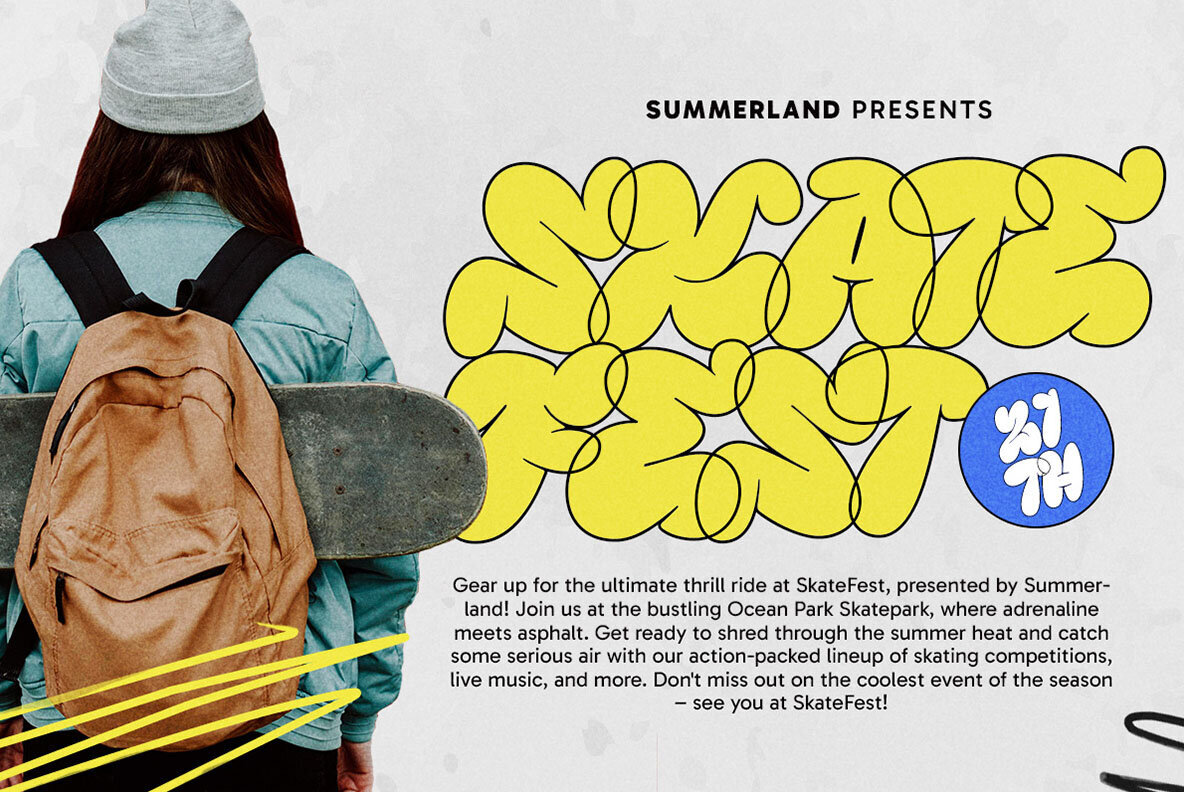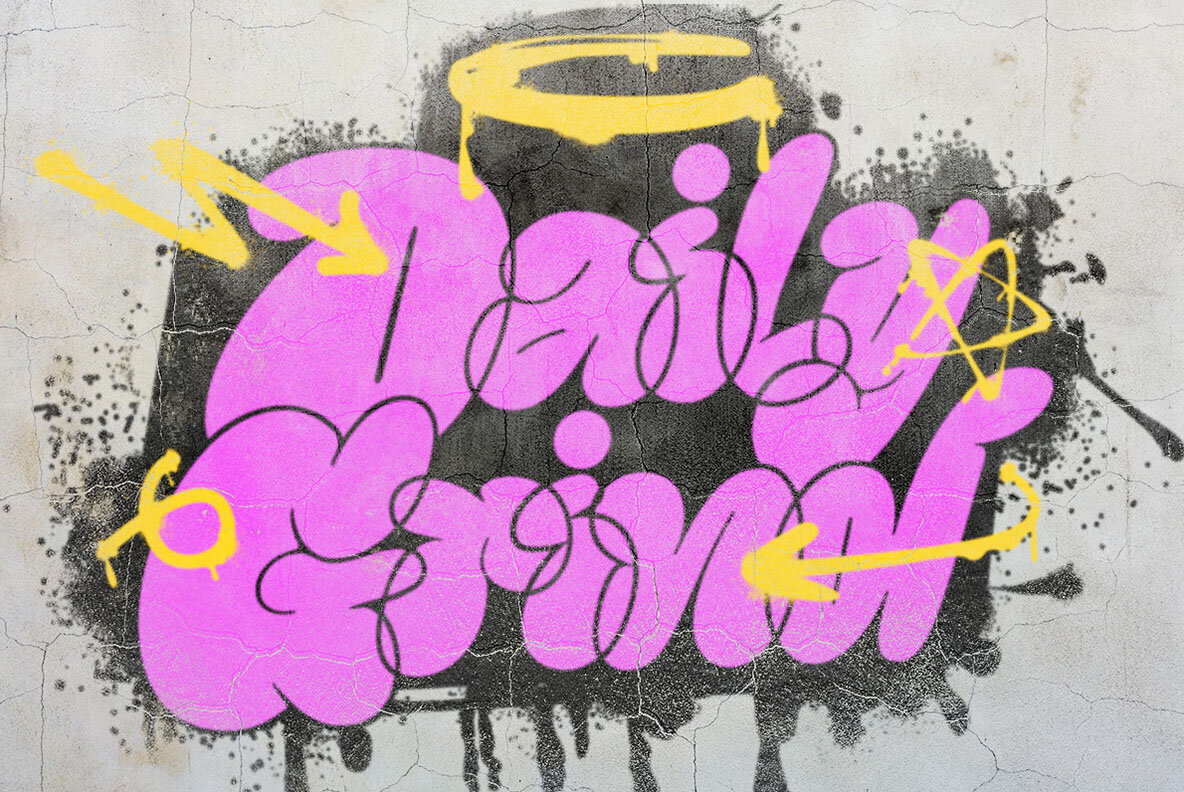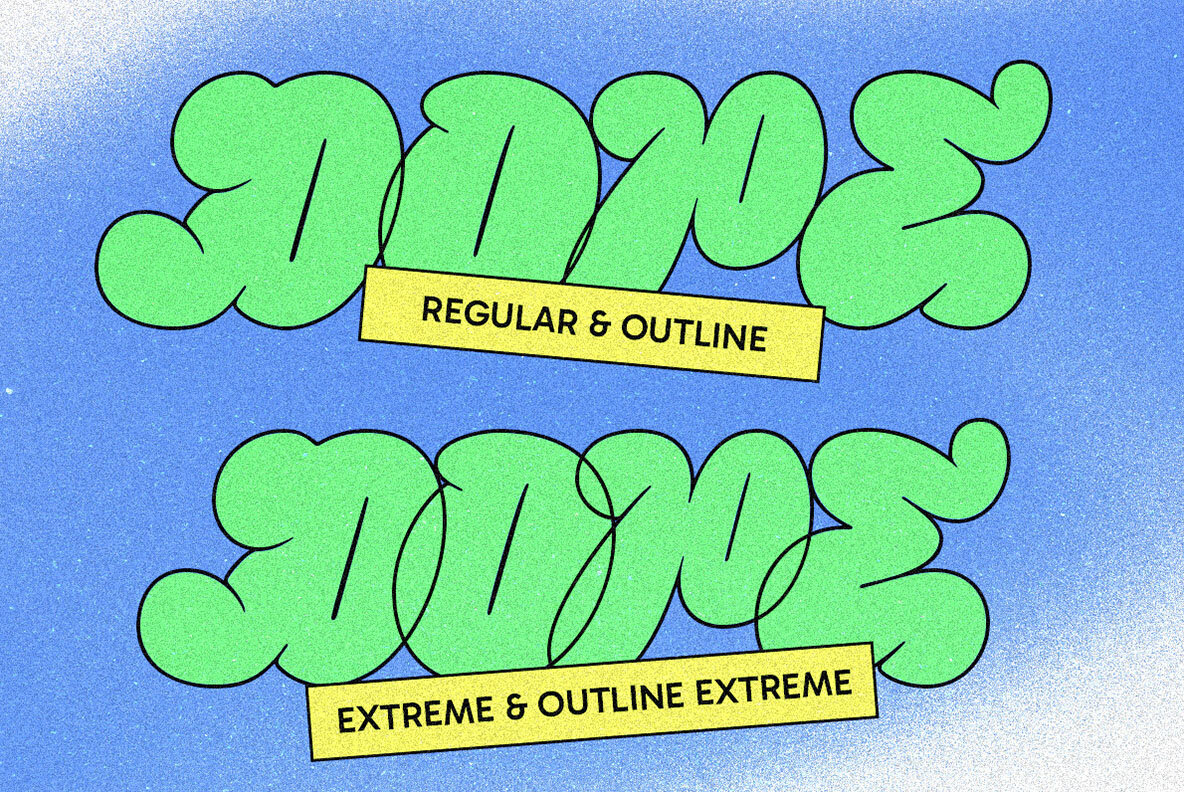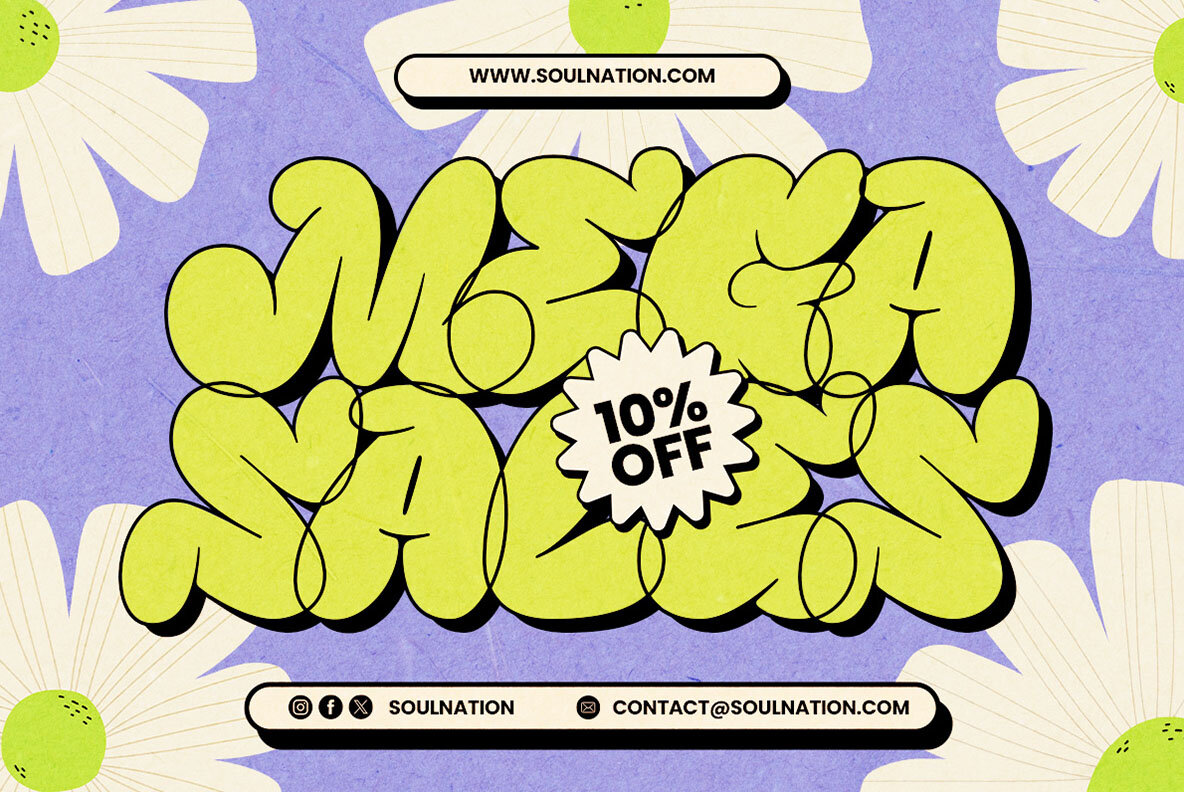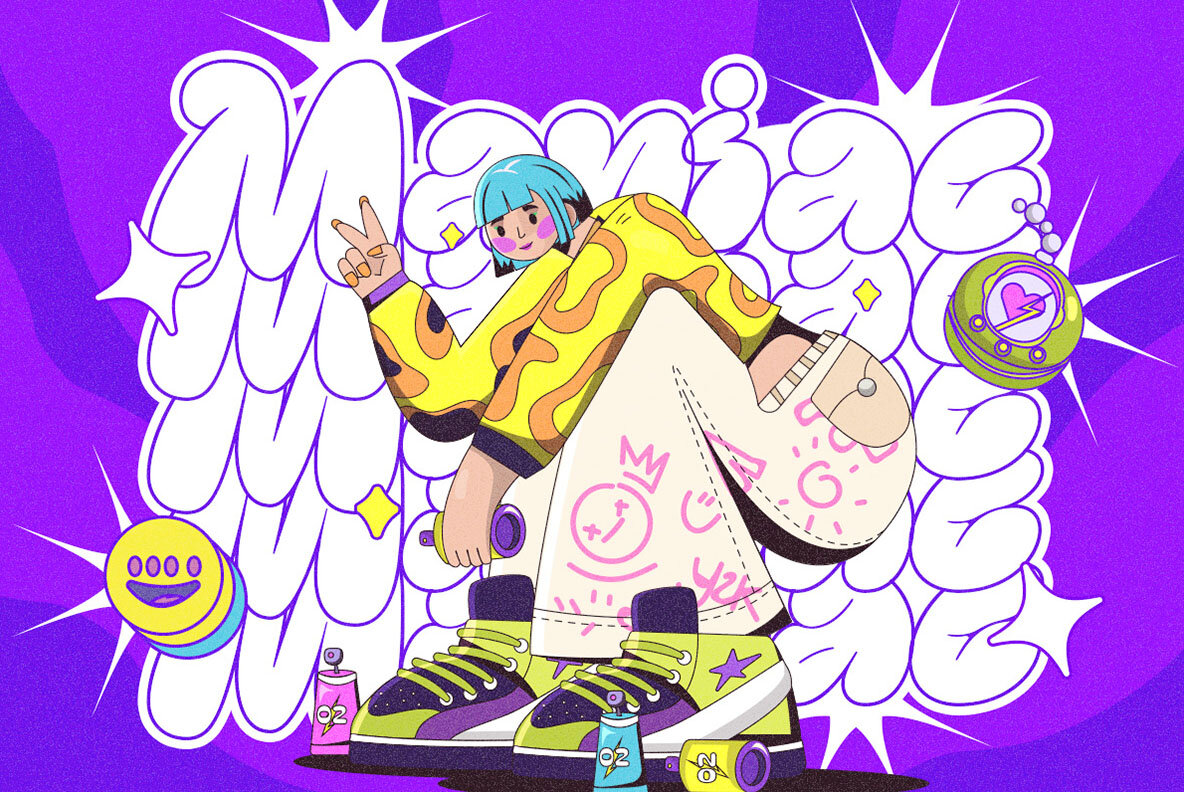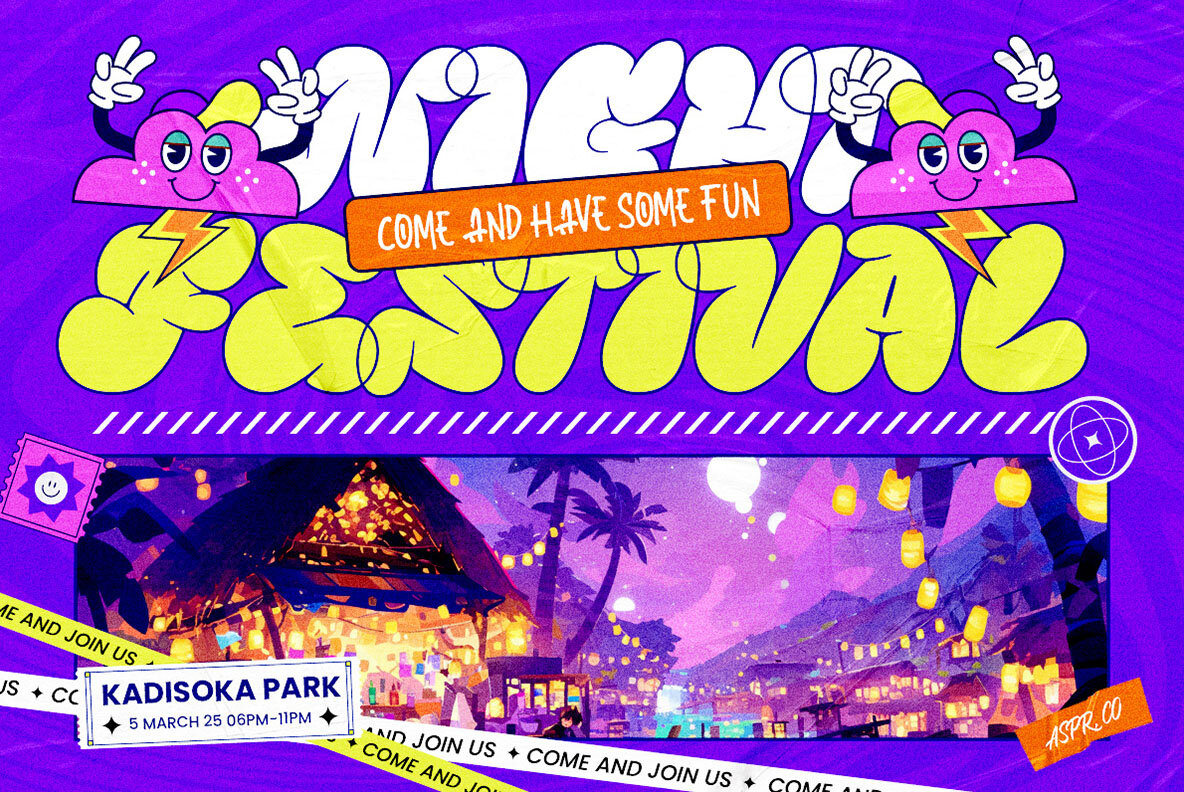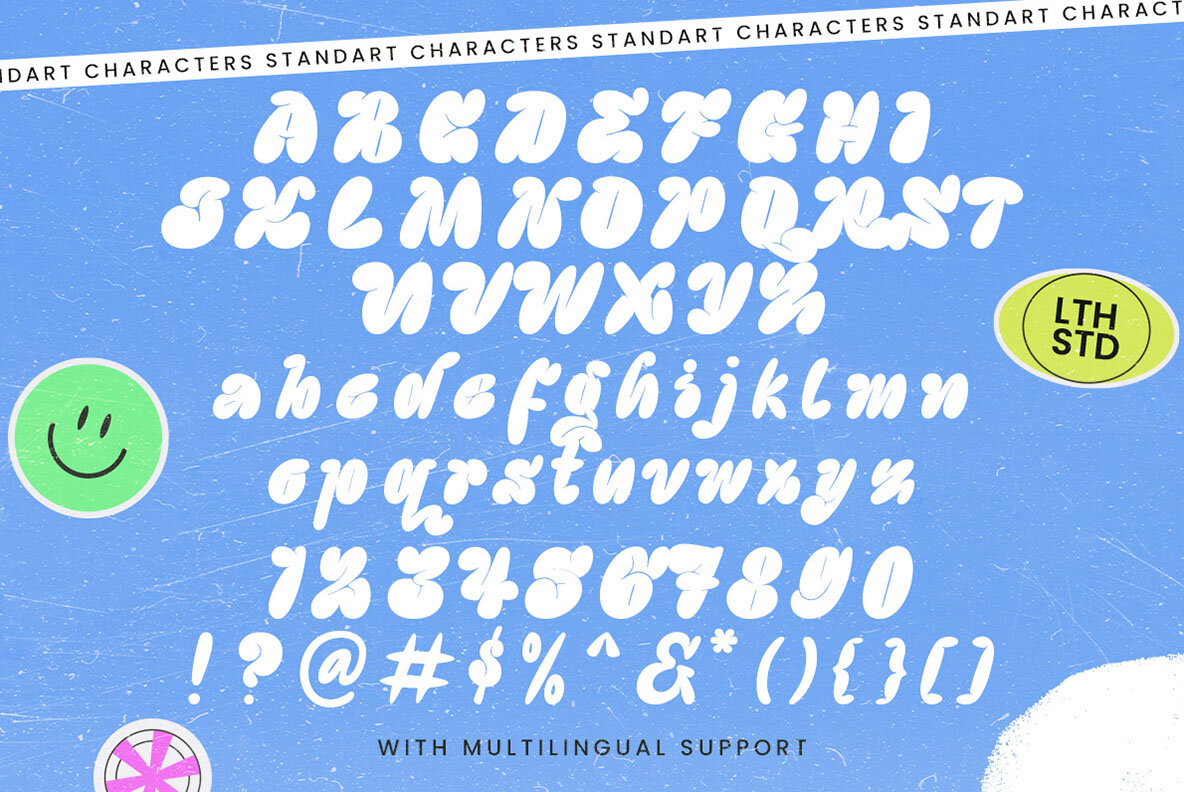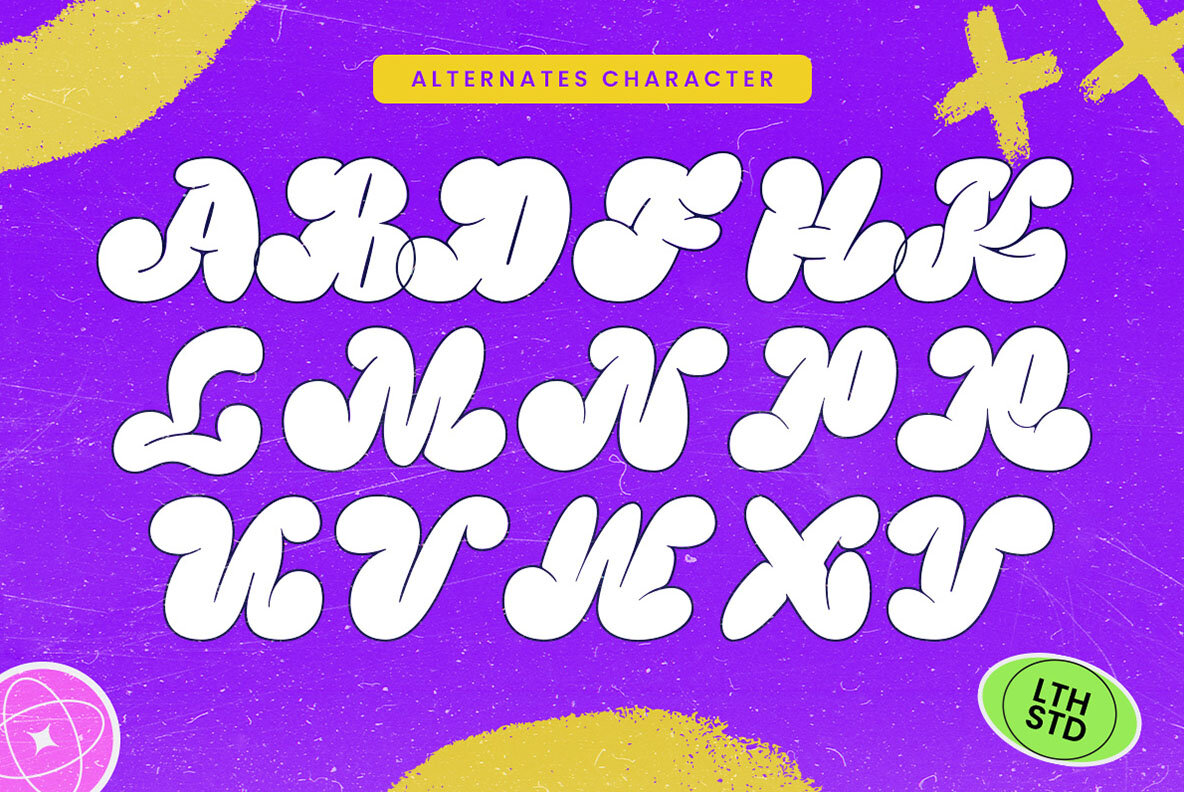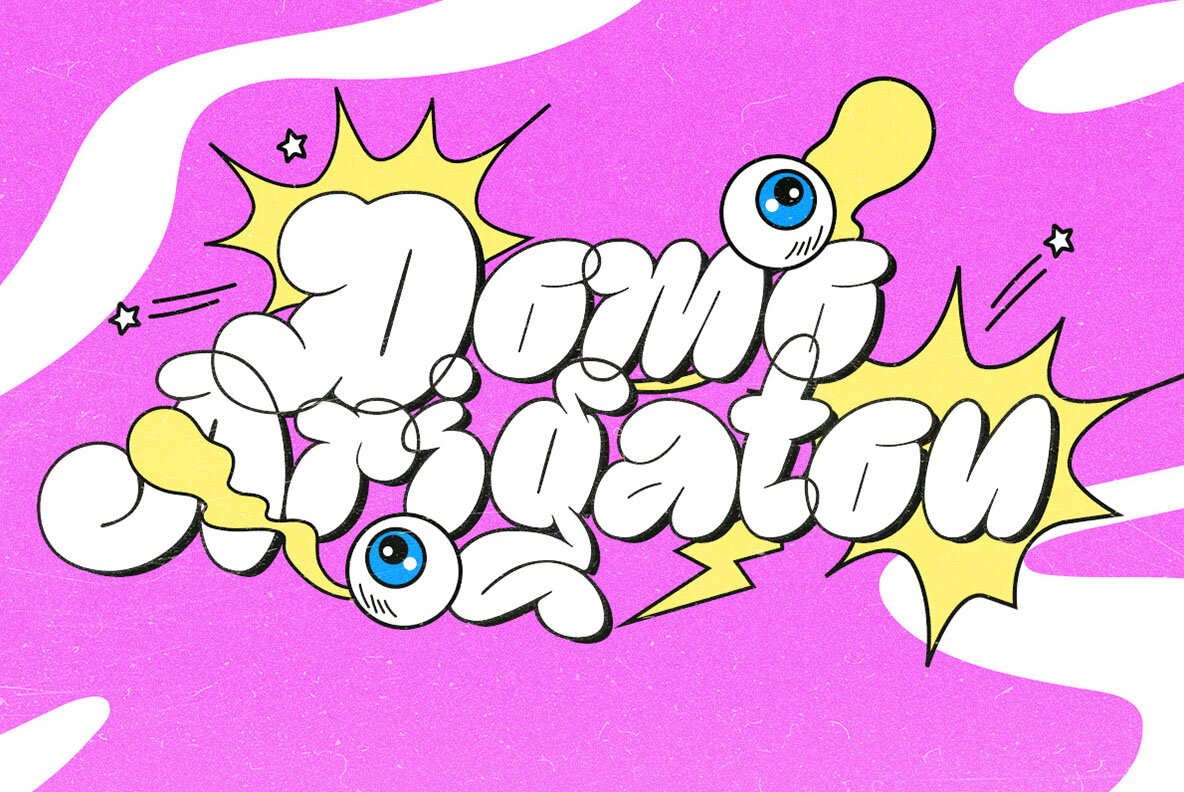
Fancy Quotes Font
Fancy Quotes is an exquisite bubble display font that adds a touch of catchy to any design. With its charming curves and playful demeanor, this font captures attention and infuses projects with a whimsical flair. Whether used for quotes, headlines, or creative displays, Fancy Quotes elevates your typography game to new heights. Features :